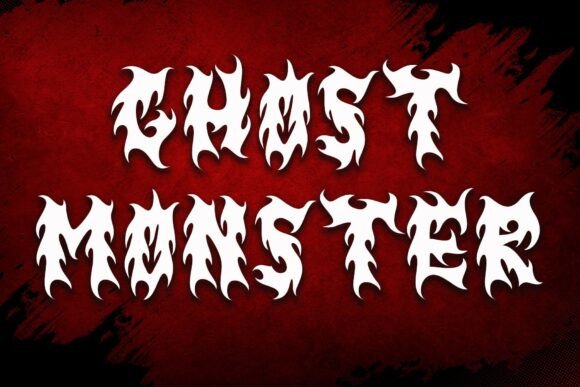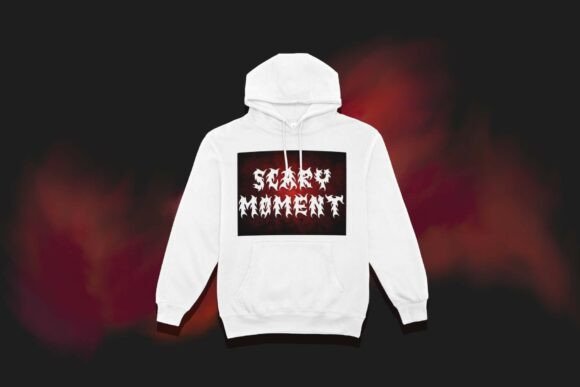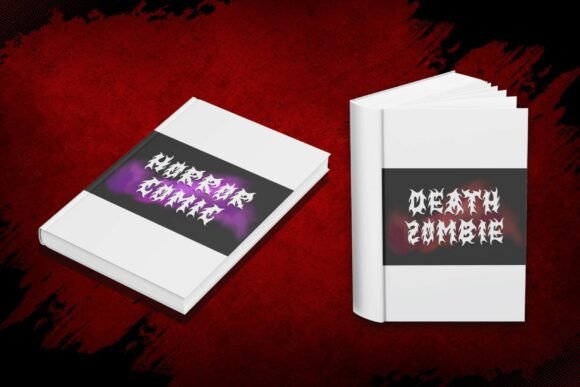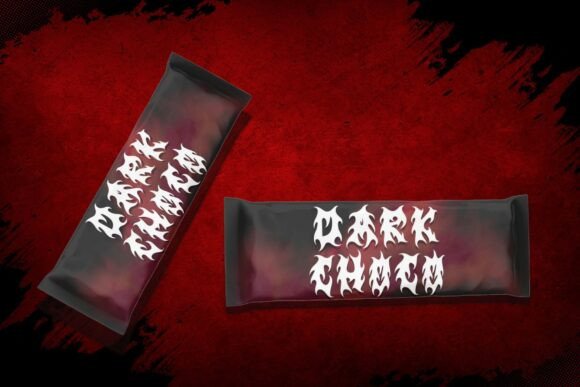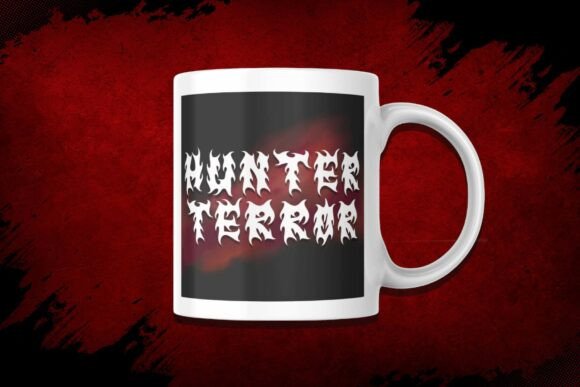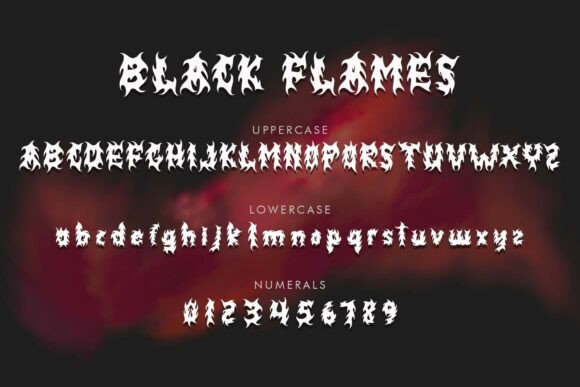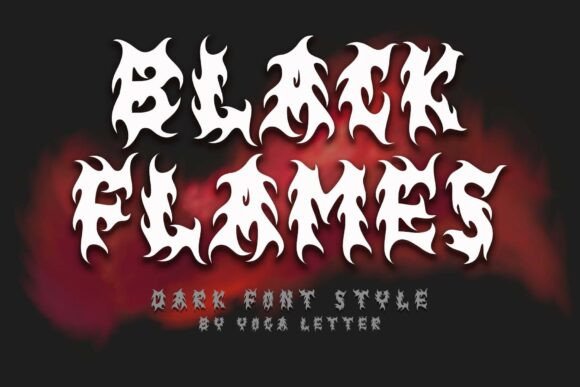
The Blazing Impact of Black Flames Font: A Designer’s Dream Come True
I’ll never forget the time I was working on a project for a heavy metal band’s album cover. I had the perfect concept in mind, but I was struggling to find a font that could match the intensity and energy of their music. That’s when I stumbled upon Black Flames Font, and it completely transformed my design. With its bold, fiery edges and dark, gothic-inspired style, it brought the perfect amount of drama and power to the project. In this article, I’ll share my experience with Black Flames Font, its features, and how you can make the most of it in your designs.
An Honest Review of Black Flames Font
- ✨ Bold and fiery design: Black Flames Font is perfect for making a statement with your designs. Its sharp, flame-shaped edges add a level of intensity and drama that’s hard to match.
- ✅ Dark, gothic-inspired style: The font’s dark and mysterious vibe makes it ideal for projects that require a sense of power and mystery, such as metal band artwork, horror titles, and gaming covers.
- 🔥 High versatility: Despite its bold style, Black Flames Font can be used in a variety of design contexts, from posters and flyers to digital graphics and social media posts.
While Black Flames Font is an amazing design tool, there are a few things to keep in mind:
- ⚠️ Legibility at small sizes: Due to its bold and intricate design, Black Flames Font can become difficult to read at very small sizes. It’s best used at larger sizes where its details can shine.
- 🤔 Limited use in body text: While the font is perfect for headings and titles, it’s not the best choice for body text due to its bold style and intricate details.
- Experiment with the font’s OpenType features, such as glyphs and stylistic alternates, to add more variety to your design.
The Backstory of Black Flames Font
Black Flames Font was designed by a team of typographers who wanted to create a font that could capture the intensity and energy of heavy metal music. The font was inspired by the flames and sparks of a burning fire, and its bold and fiery design is meant to evoke a sense of power and drama.
Q: What type of projects is Black Flames Font best suited for?
A: Black Flames Font is perfect for projects that require a bold and fiery design, such as metal band artwork, horror titles, gaming covers, and posters.
Q: Is Black Flames Font available in different styles or variations?
A: Yes, Black Flames Font comes in several different styles and variations, including bold, regular, and italic.